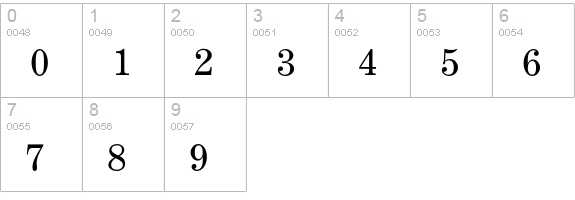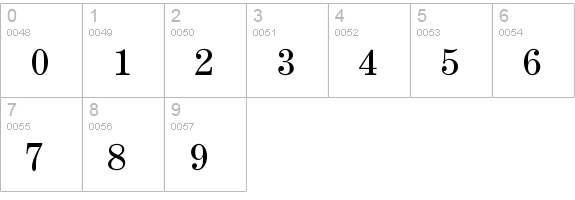
CenturyExpEF-Regular Font Details
CenturyExpEF-Regular is the standard, neutral variant in the CenturyExpEF typeface family \xE2\x80\x94 well suited to general body text, paragraphs, and standard typographic work.
CenturyExpEF-Regular is a classic and elegant font that exudes sophistication and style. Its timeless design makes it perfect for a wide range of projects, from formal invitations to professional presentations. The clean lines and balanced proportions of CenturyExpEF-Regular make it easy to read and versatile for various design purposes. The best part? CenturyExpEF-Regular is available for free download at FontsMarket.com. This means you can easily access this high-quality font and use it in your projects without any cost. Whether you are a graphic designer, a student, or a business professional, CenturyExpEF-Regular is a valuable asset to have in your font library. Download it today and elevate your designs with this exquisite typeface.